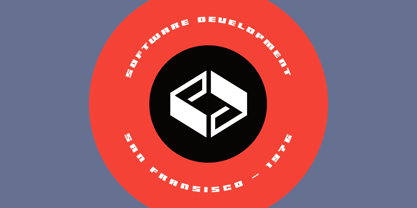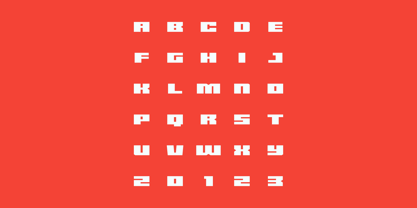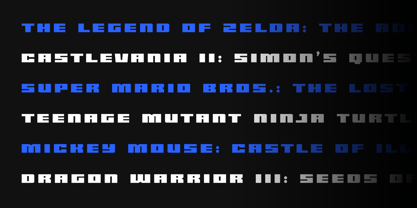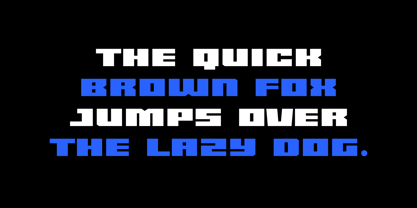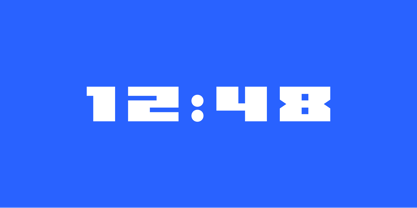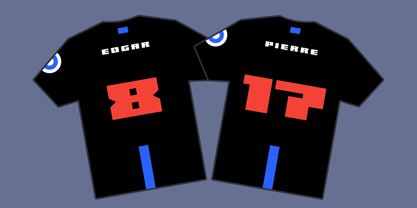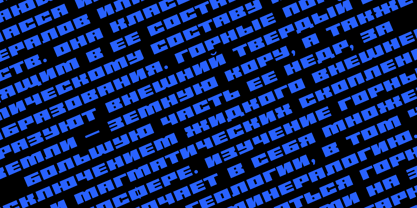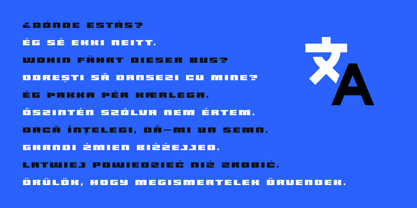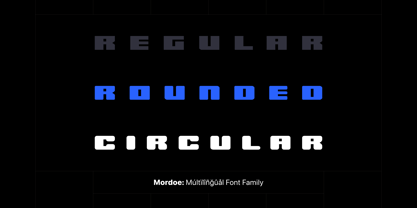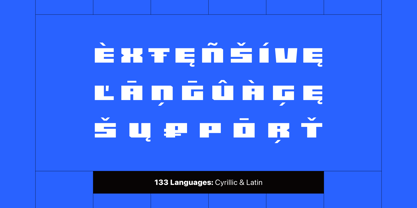
Mordoe
by AlperCakici
The Mordoe Font Family was designed by Alper Çakıcı and published by AlperCakici. Mordoe contains 94 styles and family package options. More about this family
Mordoe is a bold, strong, and wide typeface engineered with a commanding military-inspired presence—without relying on stencil conventions. Its solid structure and assertive forms deliver impact, clarity, and authority across headlines, branding, posters, and editorial design. Built for versatility, Mordoe spans an extensive family of 94 styles, ranging from clean and regular cuts to expressive textures like aged, gritty, rusty, chalk, brush, and sketchy. The inclusion of circular and rounded variants adds flexibility, allowing designers to shift between rigid strength and softened geometry while maintaining a cohesive voice. With full Latin and Cyrillic language support, Mordoe is crafted for global use. Whether you need raw, distressed character or polished bold precision, Mordoe provides a powerful typographic system for striking visual communication.